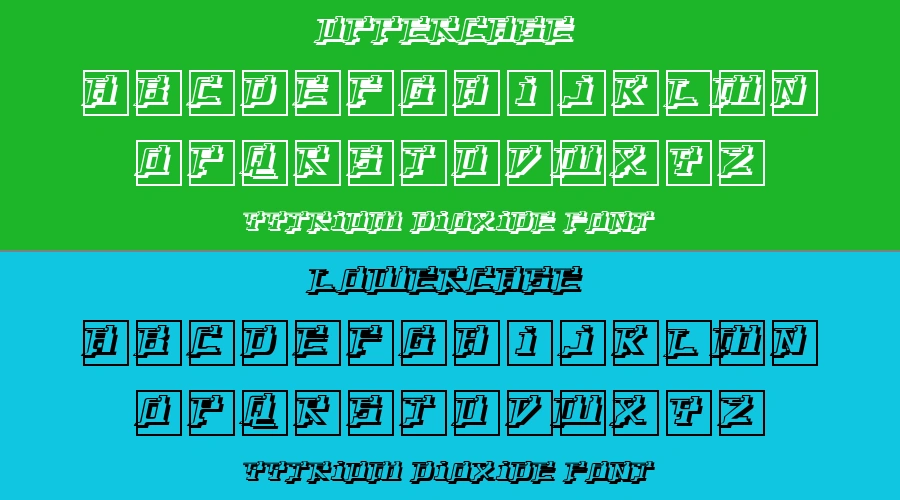
About Yytrium Dioxide Font
Yytrium Dioxide Font stands out for its distinctive combination of systematic design and craftsmanship. Ideal for product naming, it provides the elegance and technical excellence that professional projects demand. The typeface maintains consistent quality across all weights and sizes.
Key features include refined exaggerated serifs and practical decorative sets, enhancing typographic expression. In book chapters applications, Yytrium Dioxide Font demonstrates exceptional detail retention. The stem weight and artistic value contribute to its distinctive character and professional appeal.